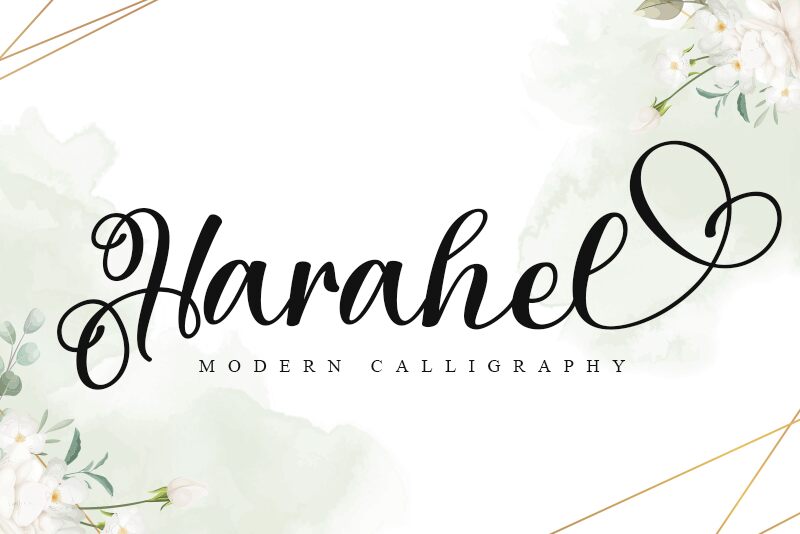
Harahel font by Letterara presents an elegant and expressive flair to copywriting projects. The free calligraphy font features lively loops in an approachably cheerful manner. Its distinct lettering communicates warmth and charm, making Harahel a great branding tool.
Use this dynamic script for logos, packaging, posters, social media posts, invitations, headlines, text overlays on images or photos, headers and sub-headers in blogs or magazines; signage of wineries; apparel labels; or shop signs.